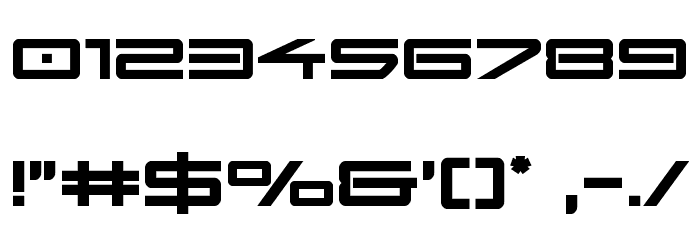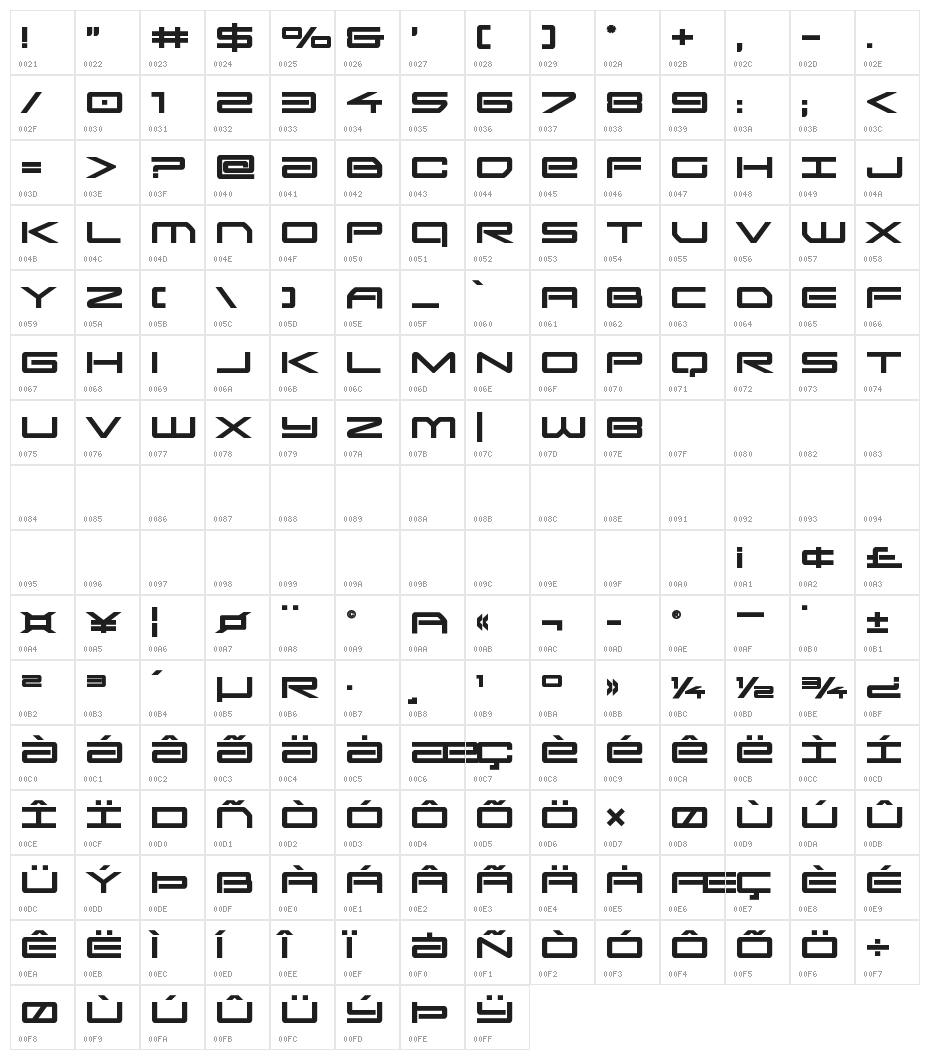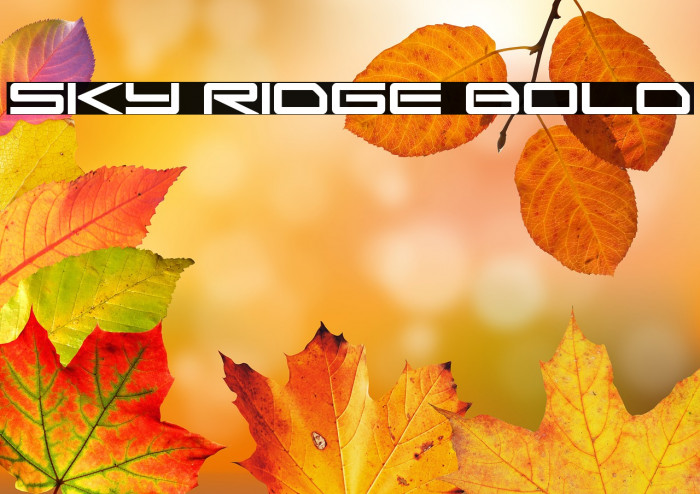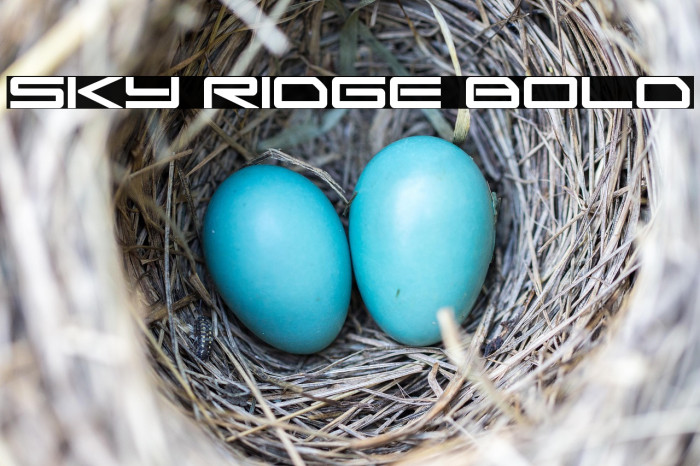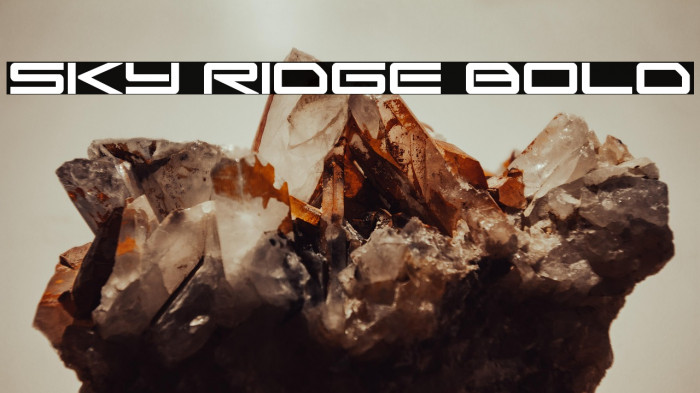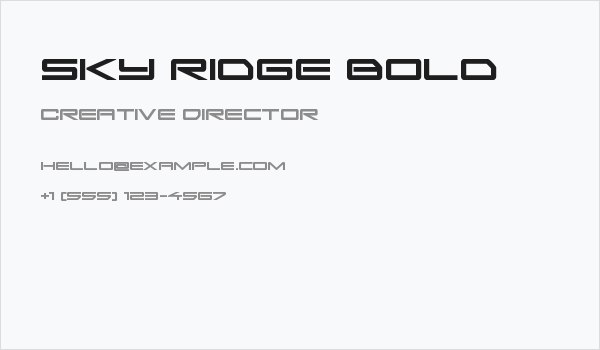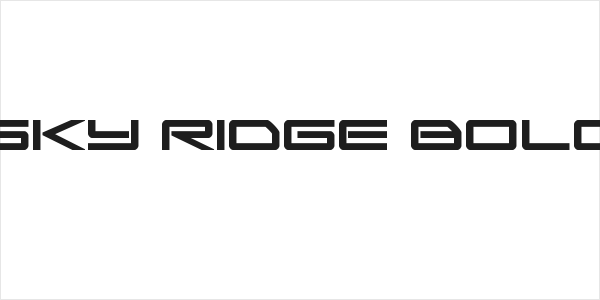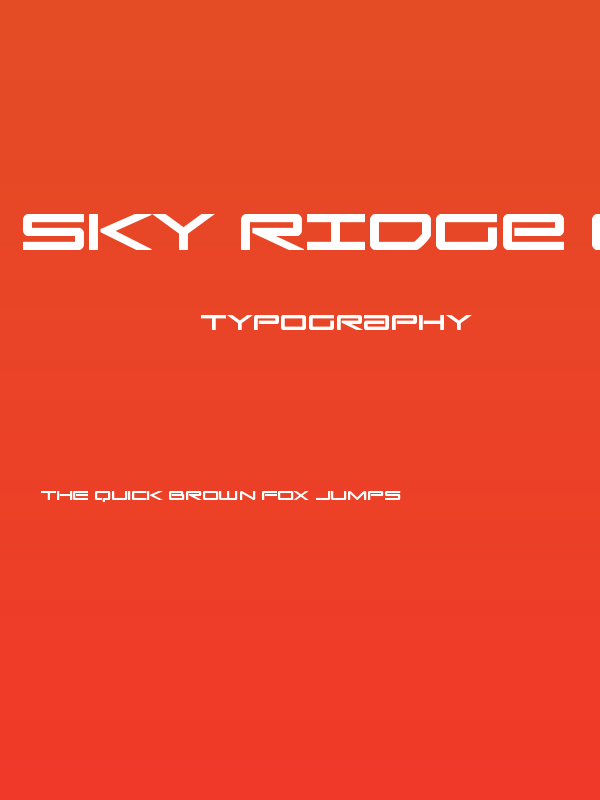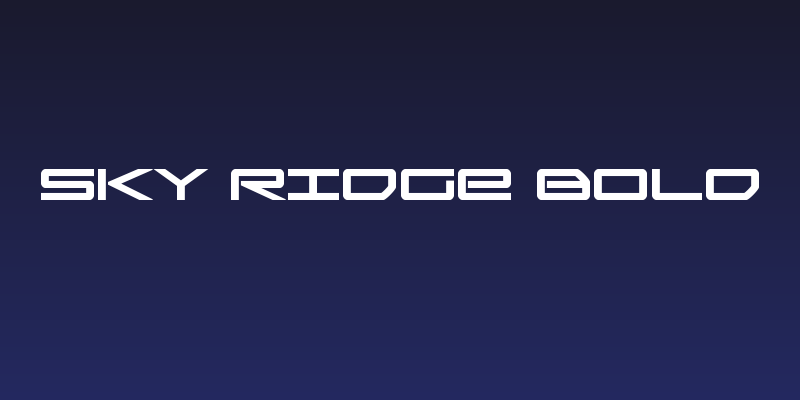
Sky Ridge Bold Font
Sky Ridge Bold Description
This font features a futuristic and geometric design, characterized by its bold and angular letterforms. The uppercase and lowercase letters share a consistent style, with sharp edges and a uniform stroke width that conveys a sense of modernity and precision. The numerals and special characters maintain this cohesive look, making the font suitable for digital and tech-oriented projects. Its clean lines and structured appearance make it ideal for creating a strong visual impact.
| Proposed Projects | Ideal for technology branding, sci-fi themed designs, video game interfaces, and modern advertising. |